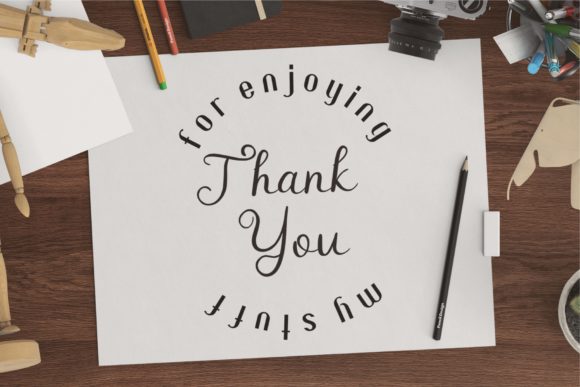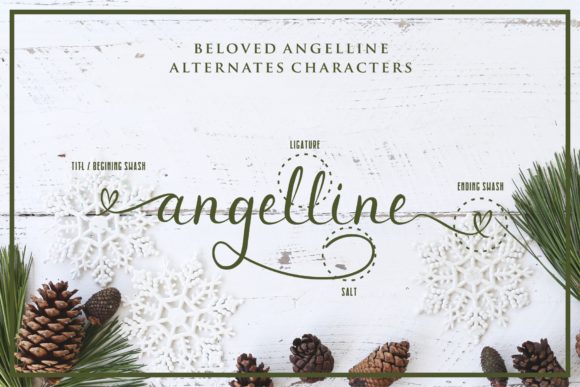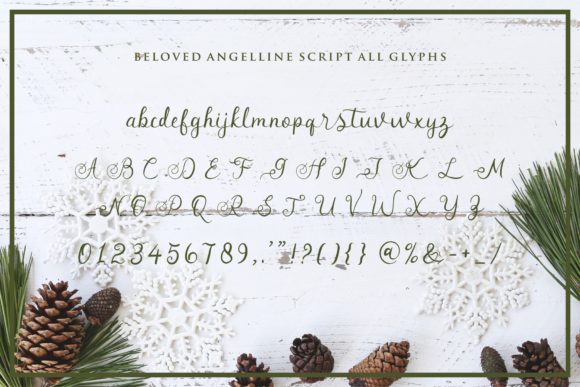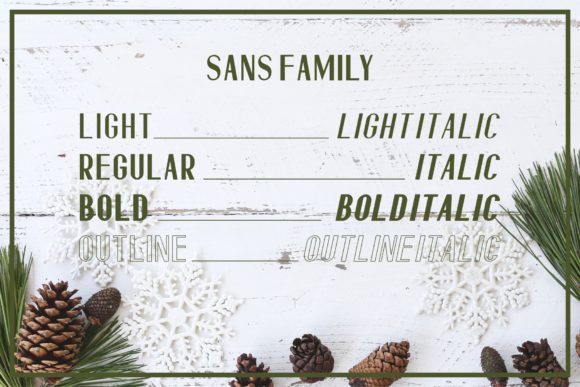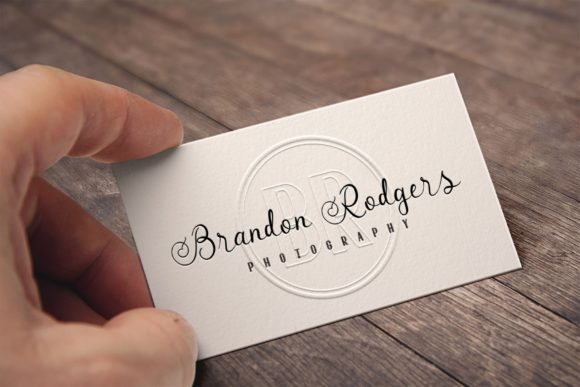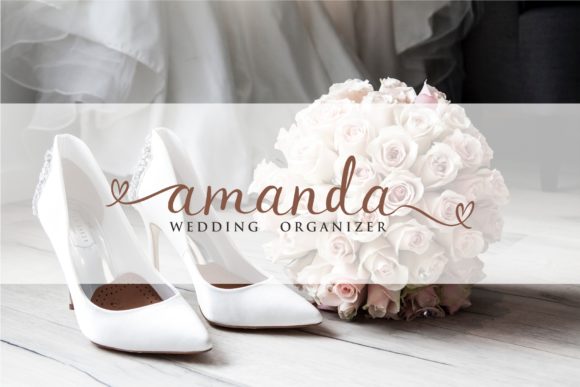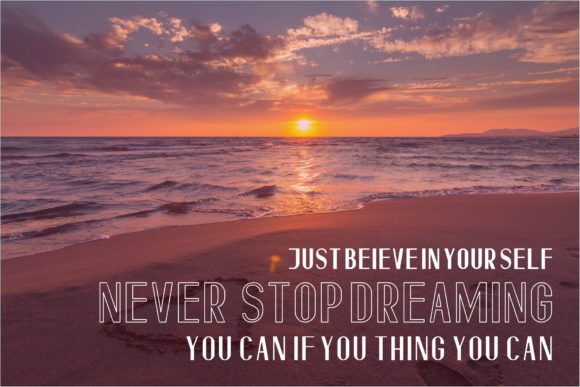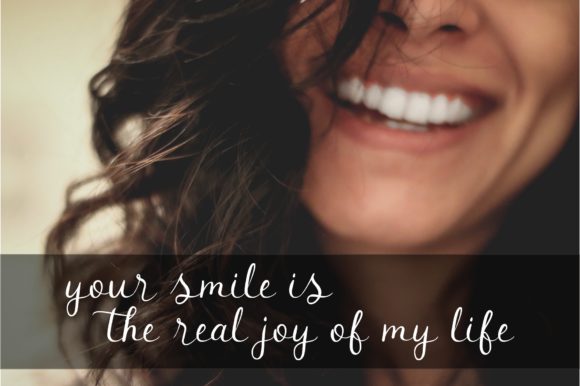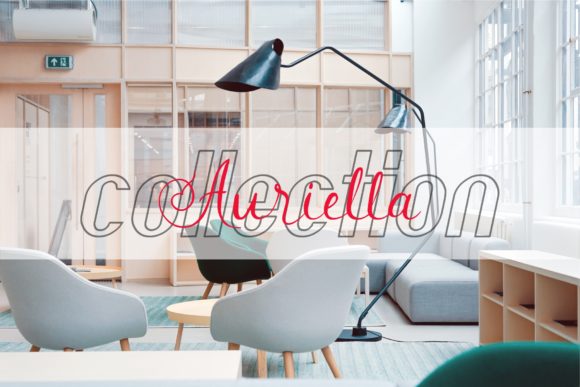
Beloved Angeline Duo Font
About Beloved Angeline Duo Font
The Beloved Angeline is an elegant font duo. It includes a script and sans version that make a perfect combination, and is rich in swashes and attractive alternates that will add a charming touch to your designs.